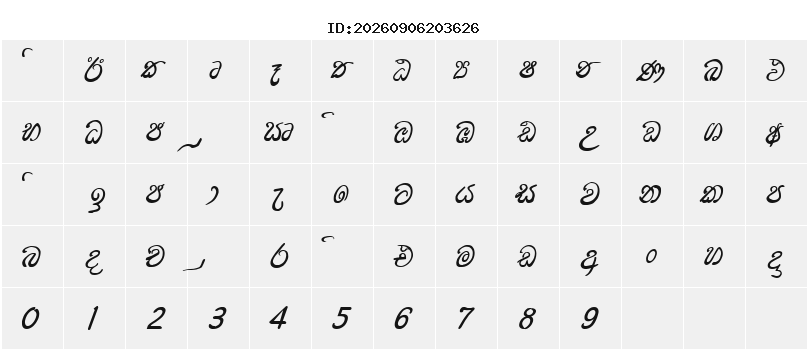
UthMax® Preview
• Font Name: UthMax®
• Font Style: Light
• Font ID: UthMax®
• Full Font Name: UthMax®
• PostScript Name: UthMax®
• Character Count: 200
About UthMax®.ttf
UthMax®.ttf is a modern, elegant sans-serif font designed for ultimate readability and visual harmony. Perfect for branding, headlines, web design, and print materials.